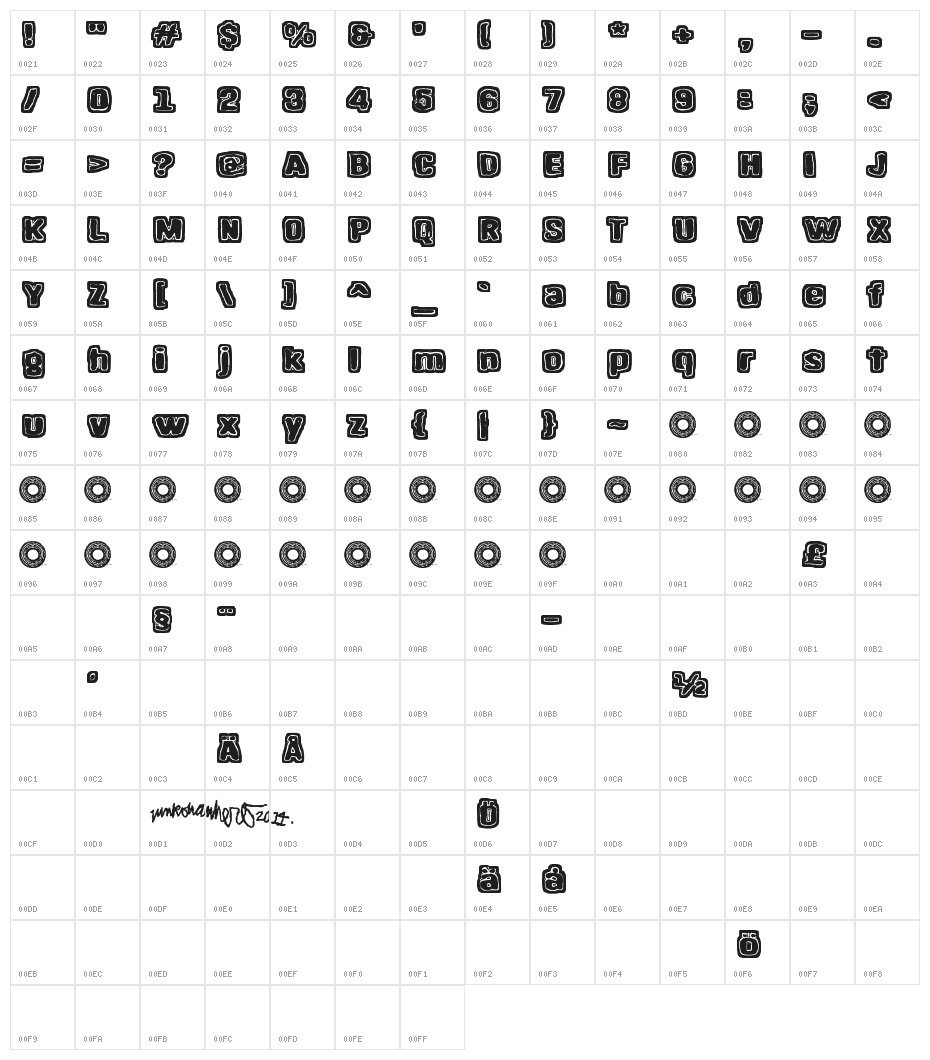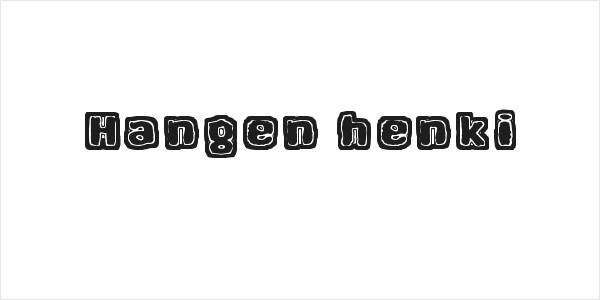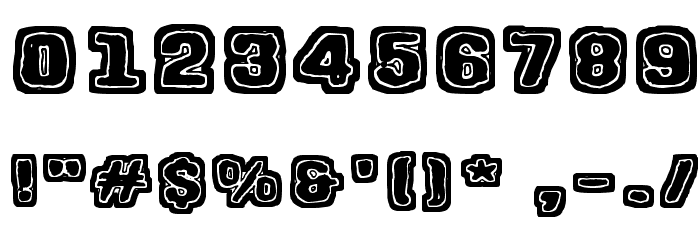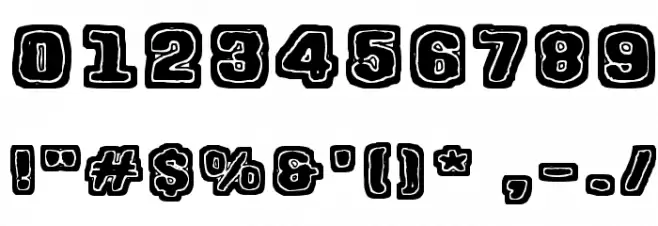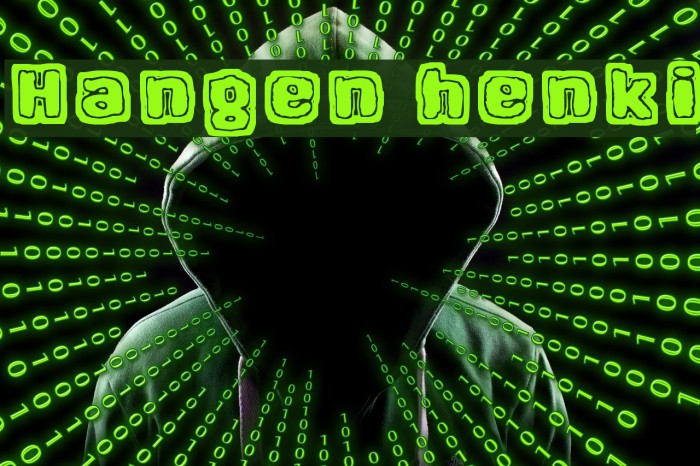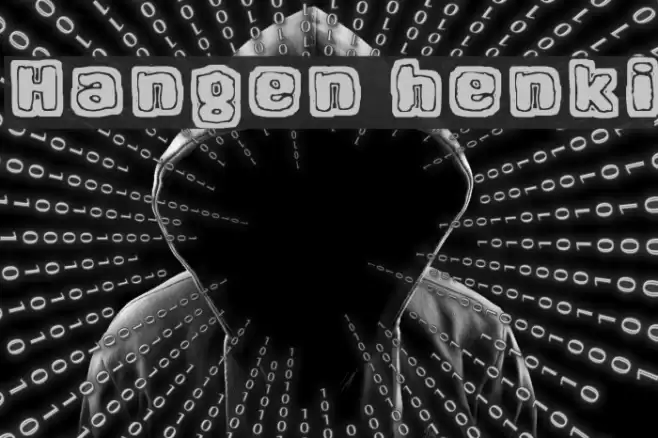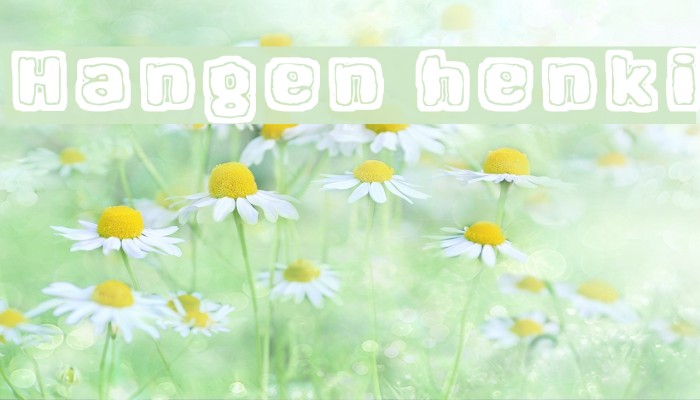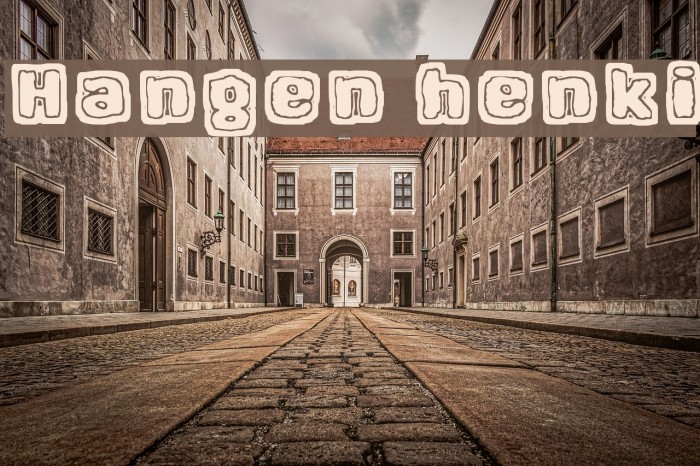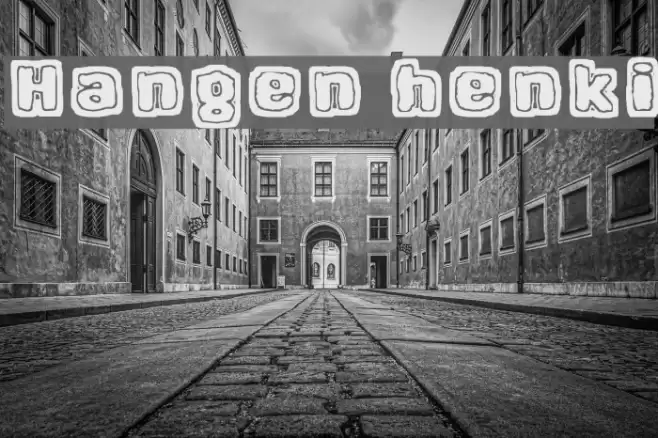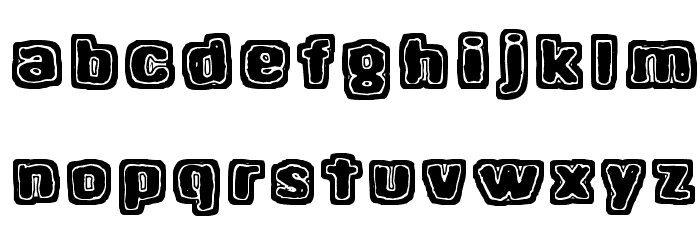
Hangen henki Font
This font features a bold, playful design with a hand-drawn aesthetic. Each character is outlined with a thick black border, giving it a cartoonish and dynamic appearance. The letters have a slightly irregular shape, adding to the whimsical and informal feel. The font is highly decorative, making it ideal for projects that require a fun and engaging look. It includes a full set of uppercase and lowercase letters, numbers, and a variety of special characters, ensuring versatility in design applications.
| Overall Style | Playful, Cartoonish, Decorative |
| Proposed Projects | Ideal for children's books, comic strips, playful branding, and party invitations. |